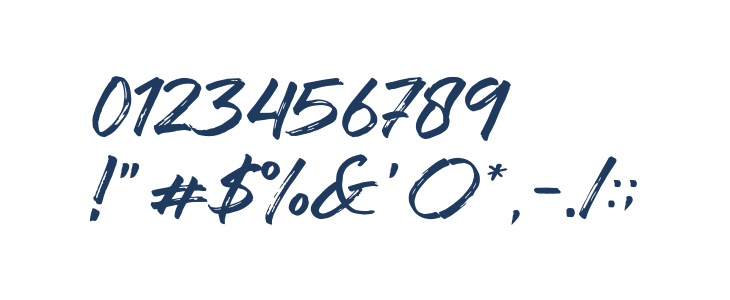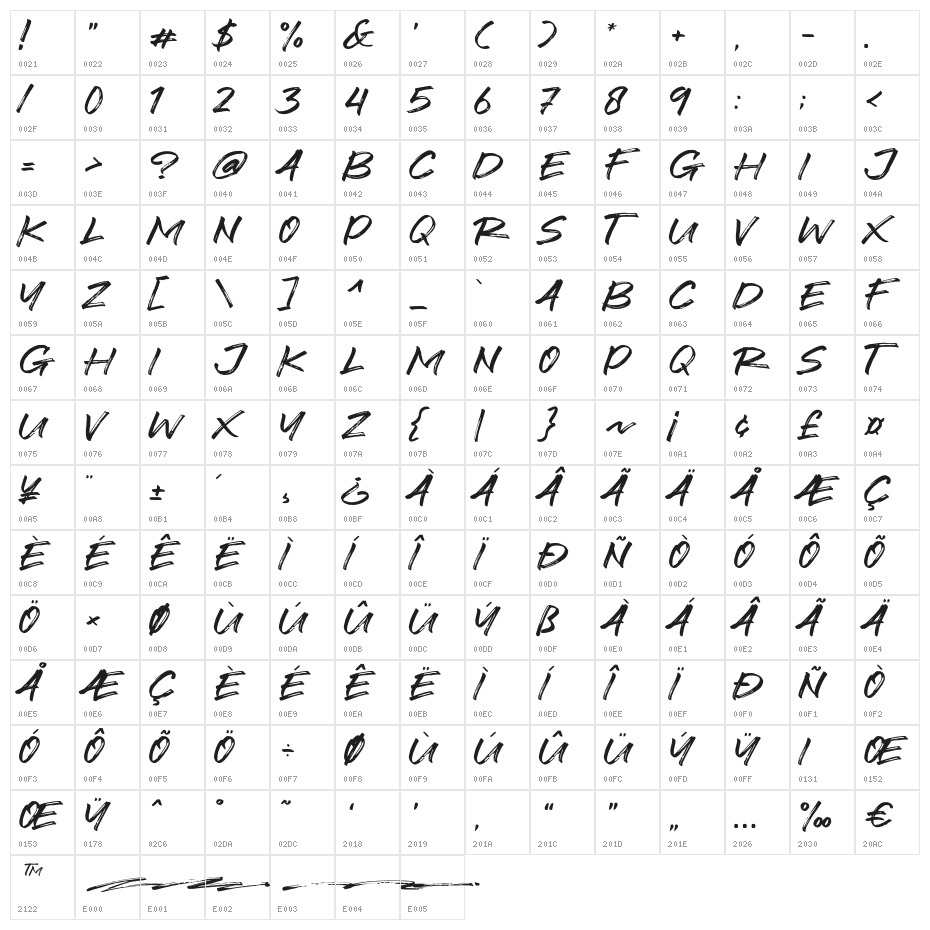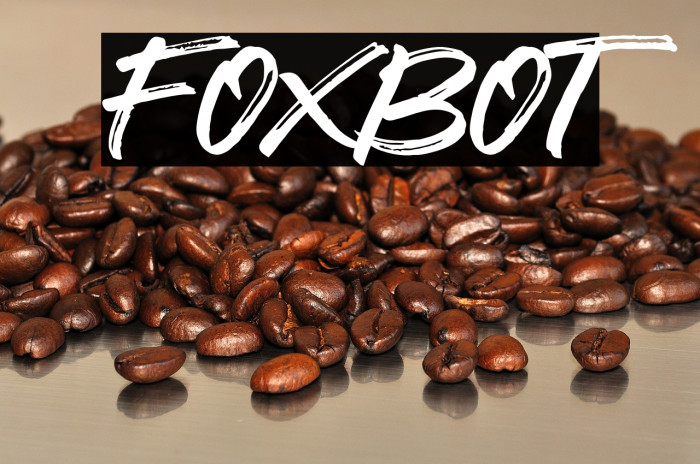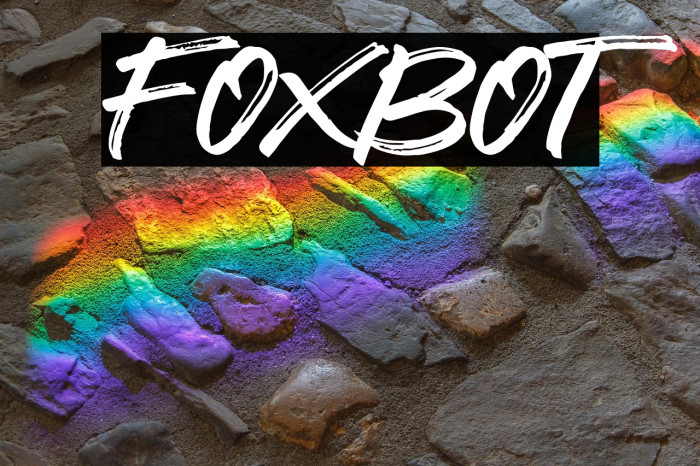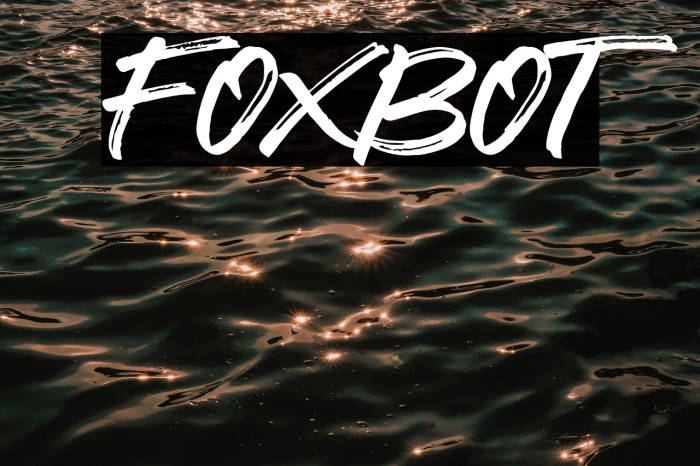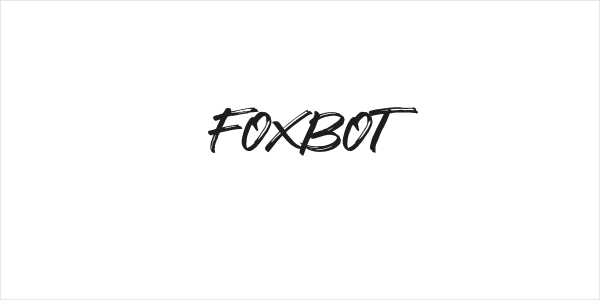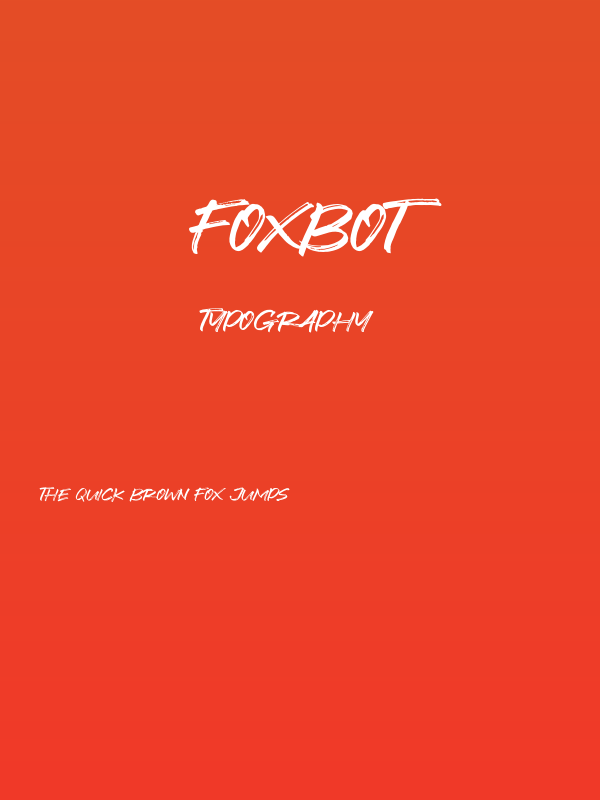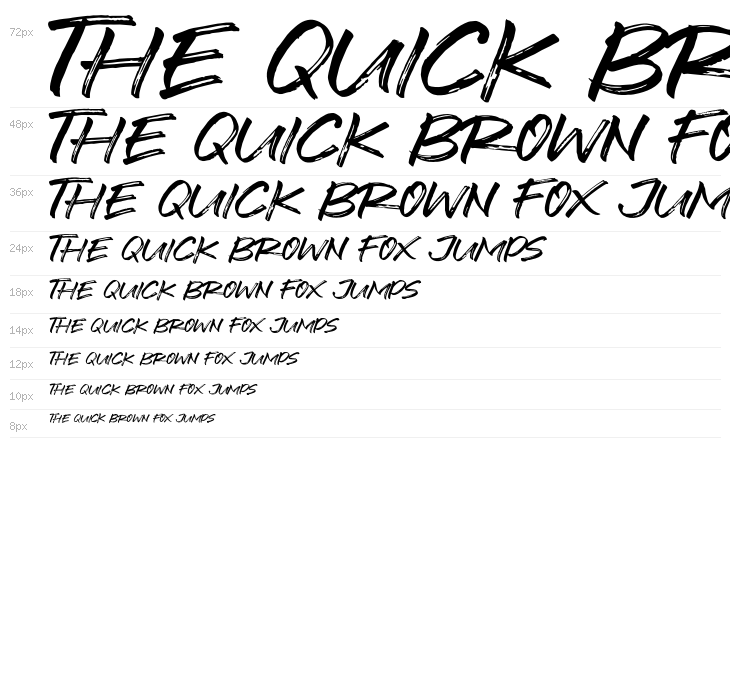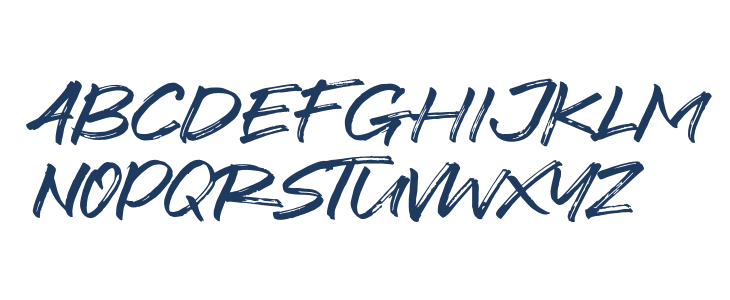
Foxbot Font
Foxbot Description
This font exudes a dynamic and energetic style, characterized by its bold, brush-like strokes that give it a hand-painted appearance. The letters are slightly slanted, adding a sense of movement and fluidity. The uppercase and lowercase letters maintain a consistent style, with exaggerated curves and sharp edges that create a striking visual impact. The numbers and special characters follow the same aesthetic, ensuring a cohesive look across all text elements. This font is ideal for projects that require a bold statement, such as posters, branding, and headlines.